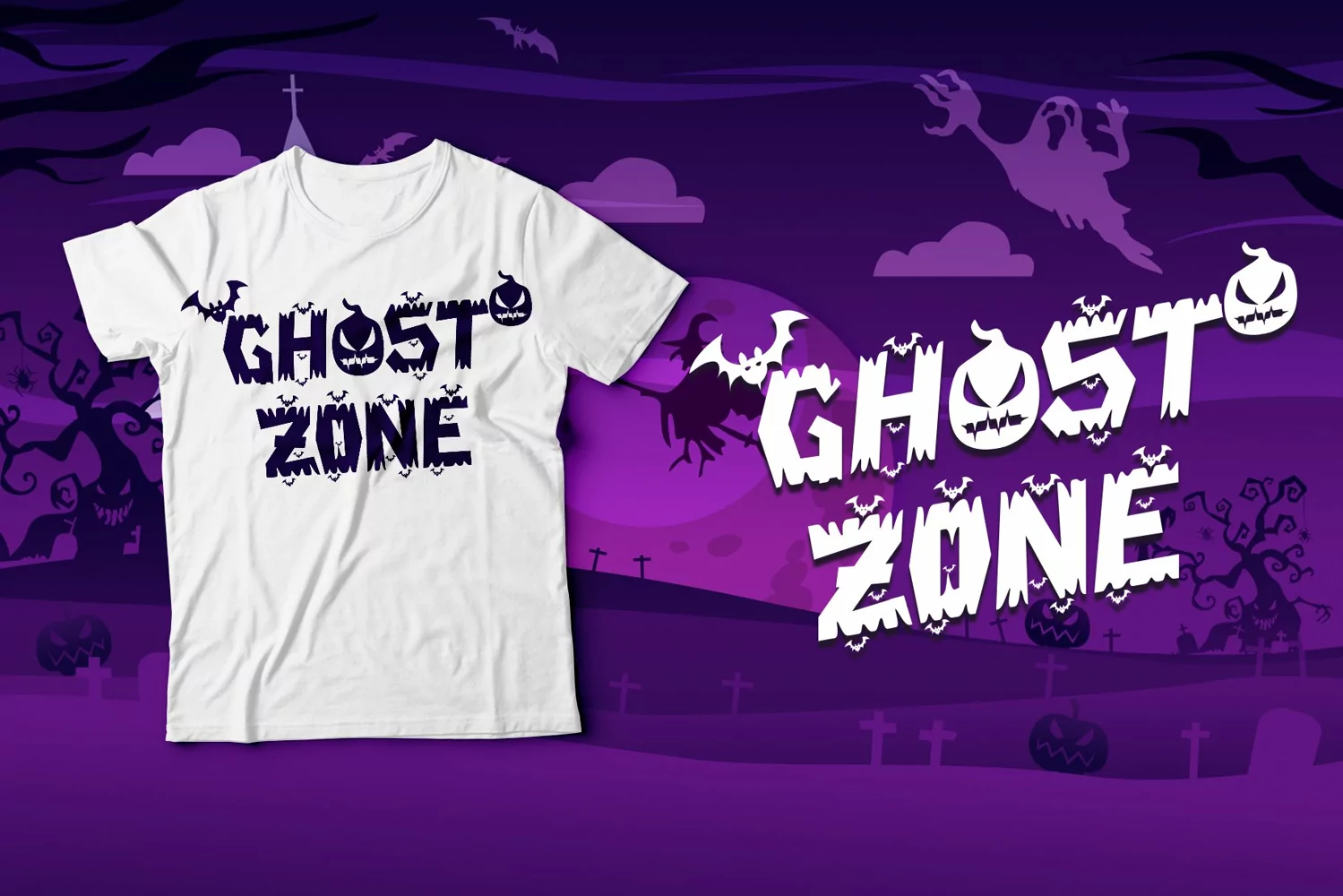
Ghost Zone Is a fun, quirky, and spooky decorative font. This font is PUA encoded which means you can access all of the glyphs and swashes with ease!